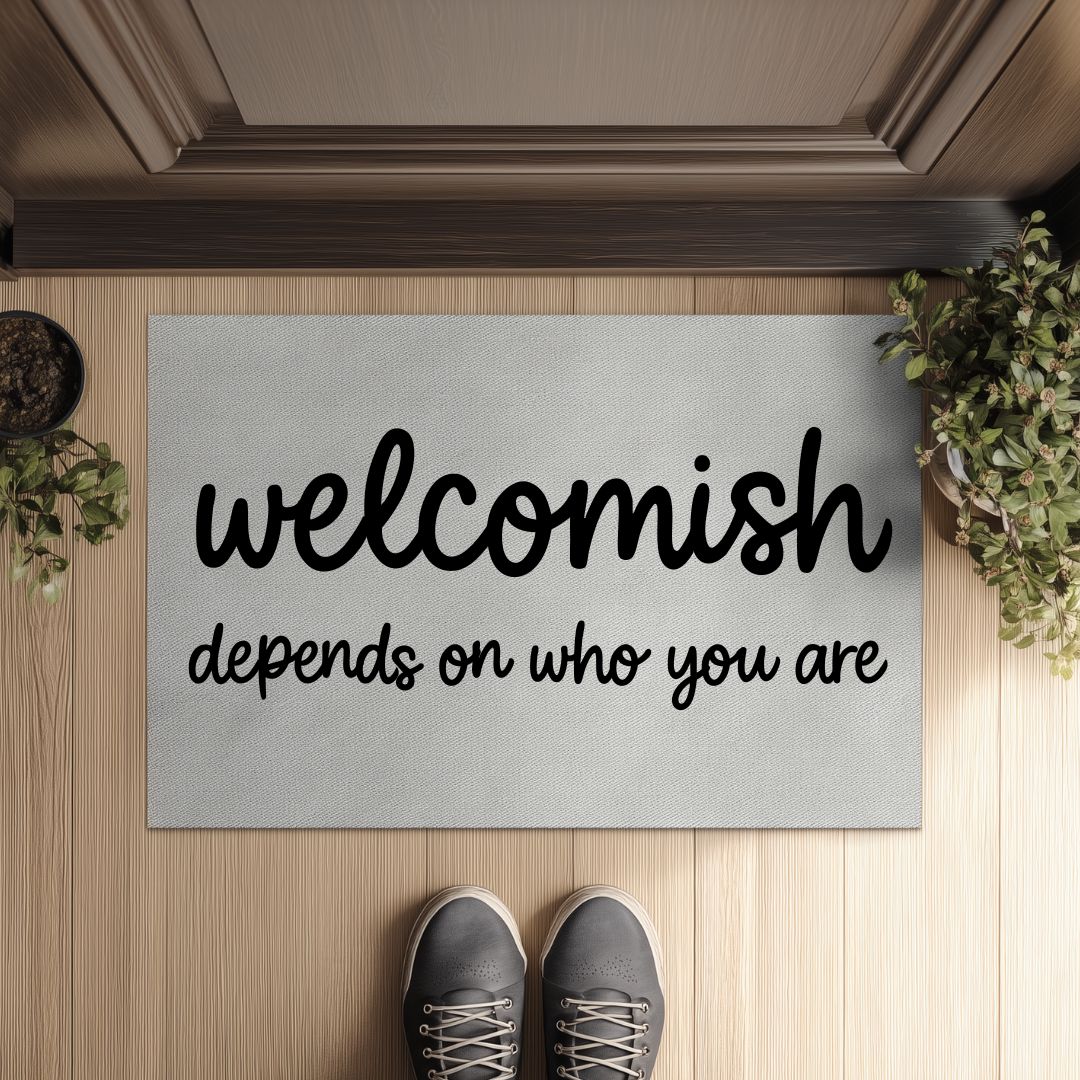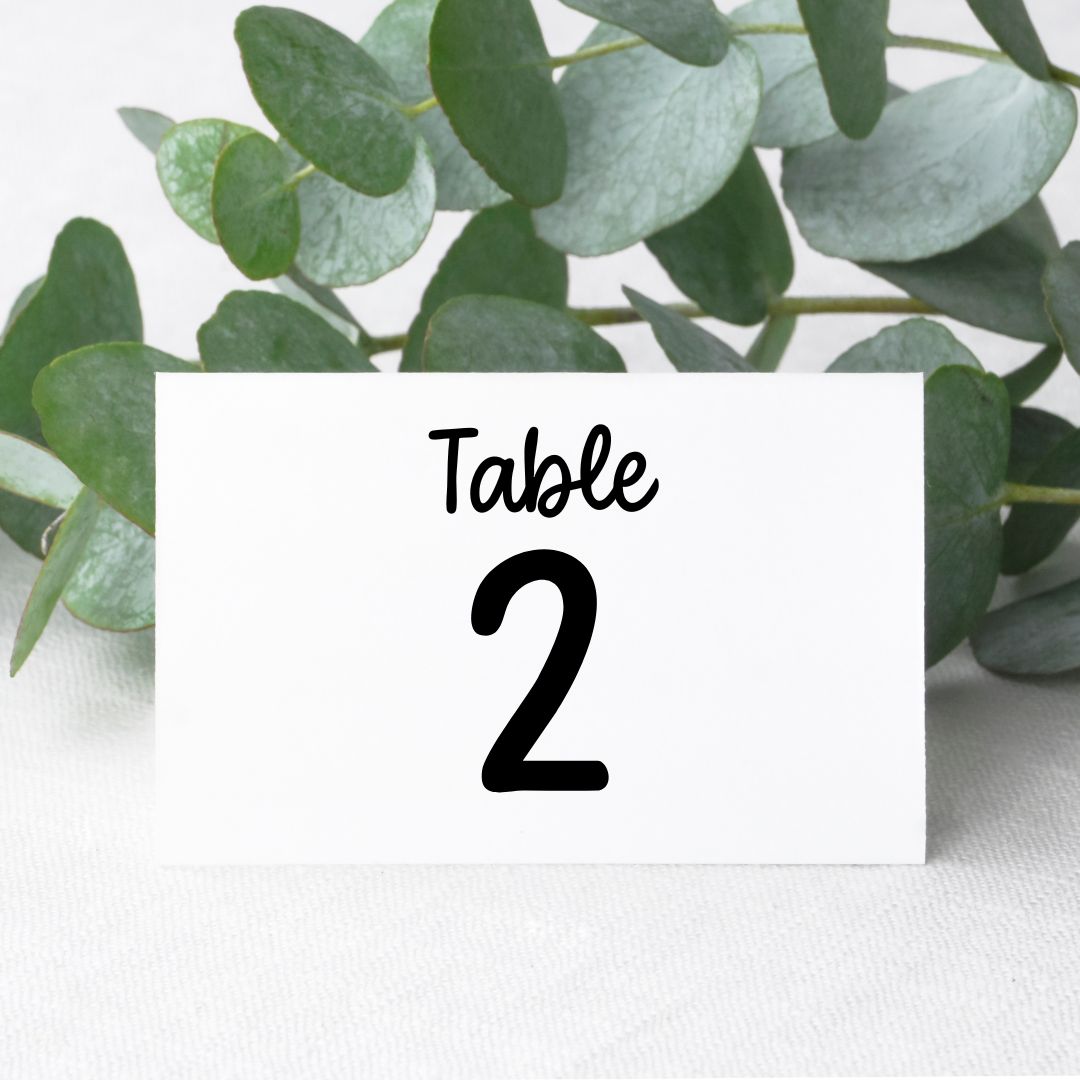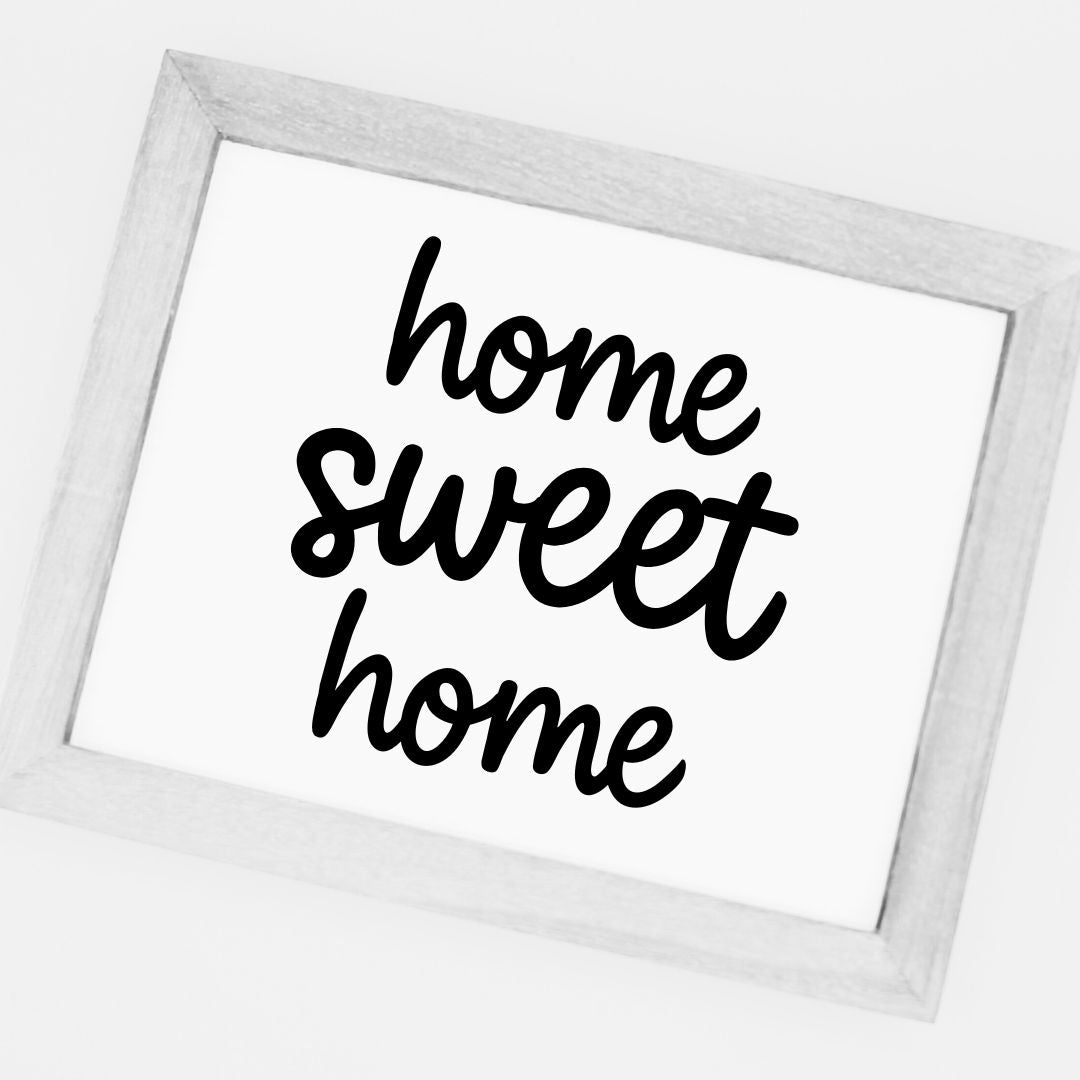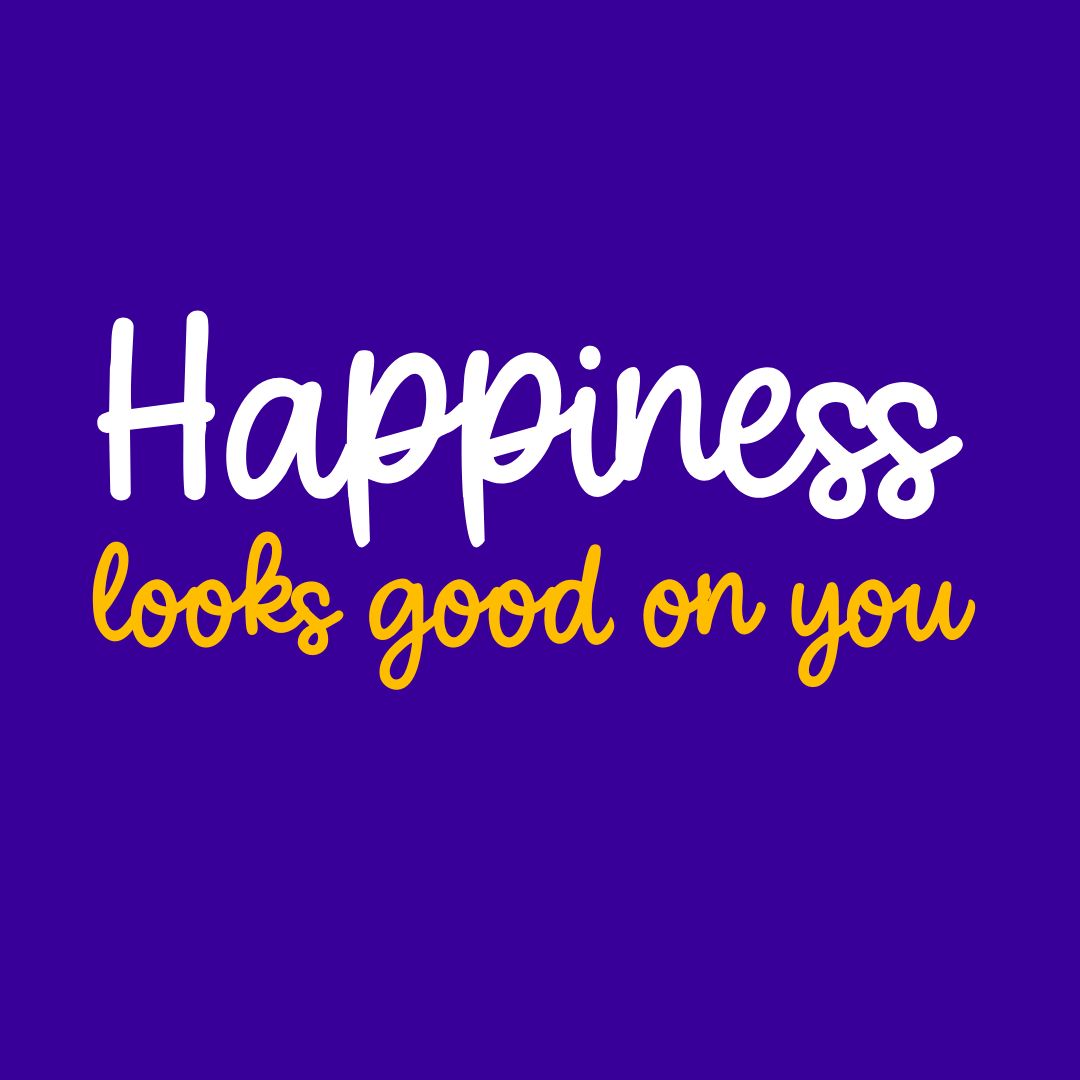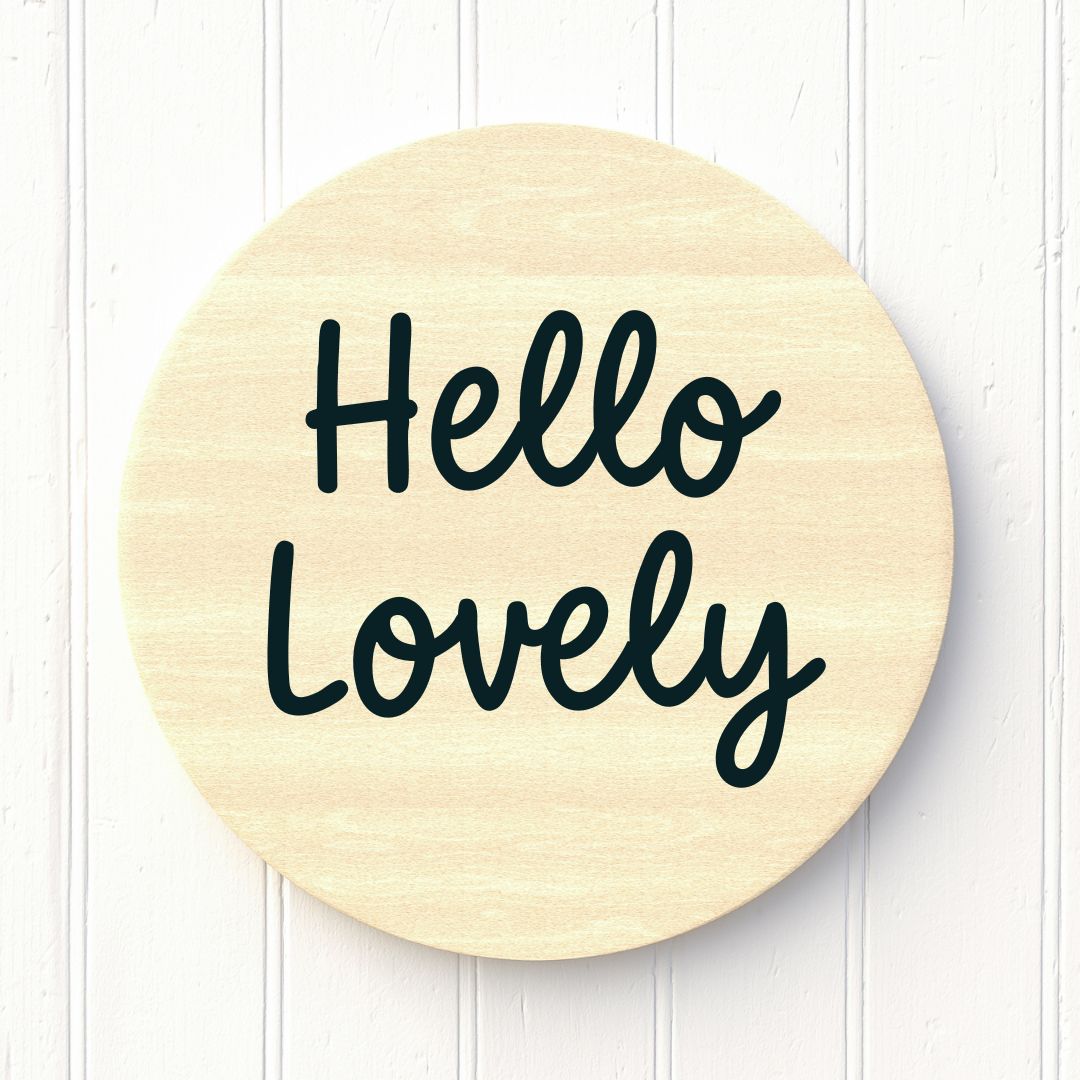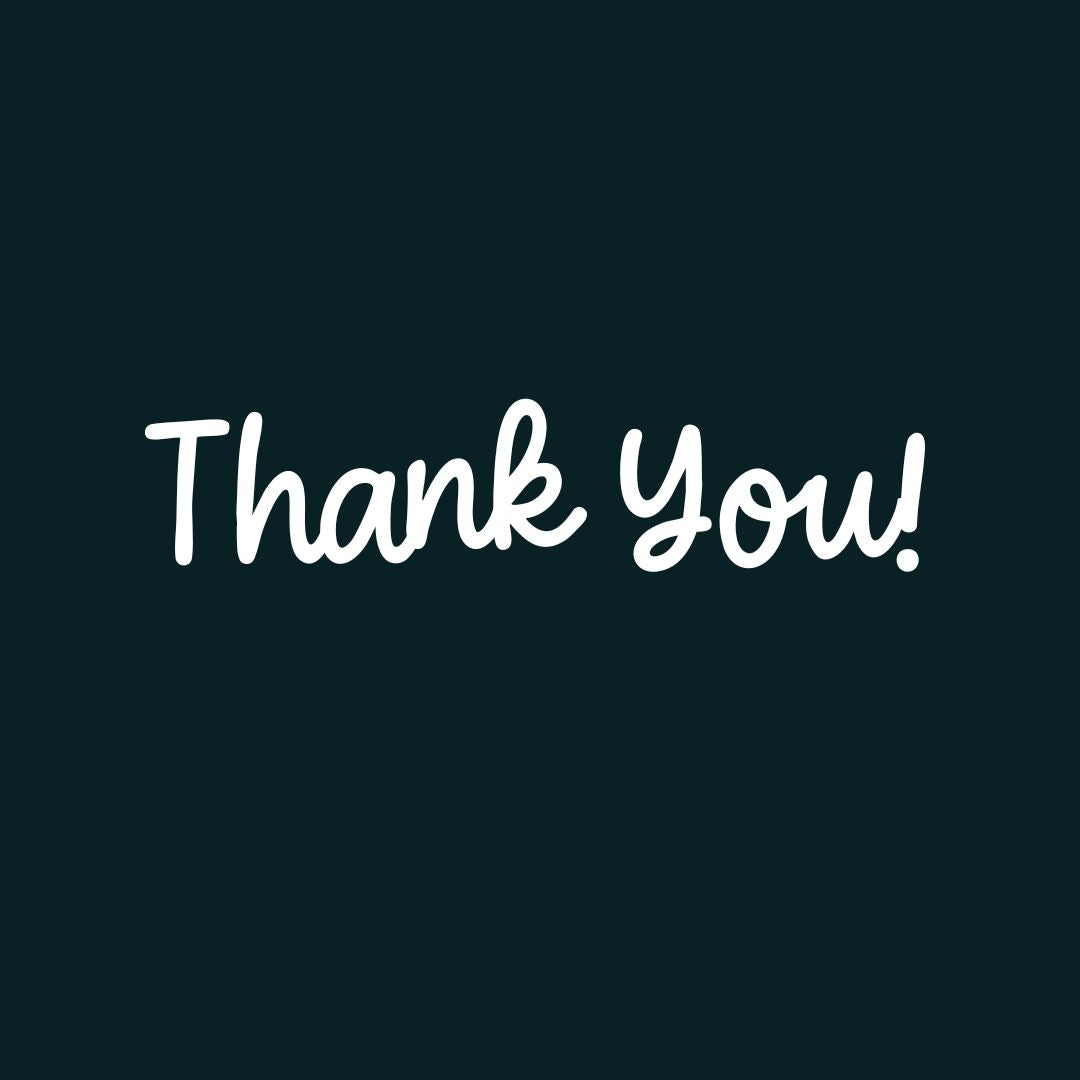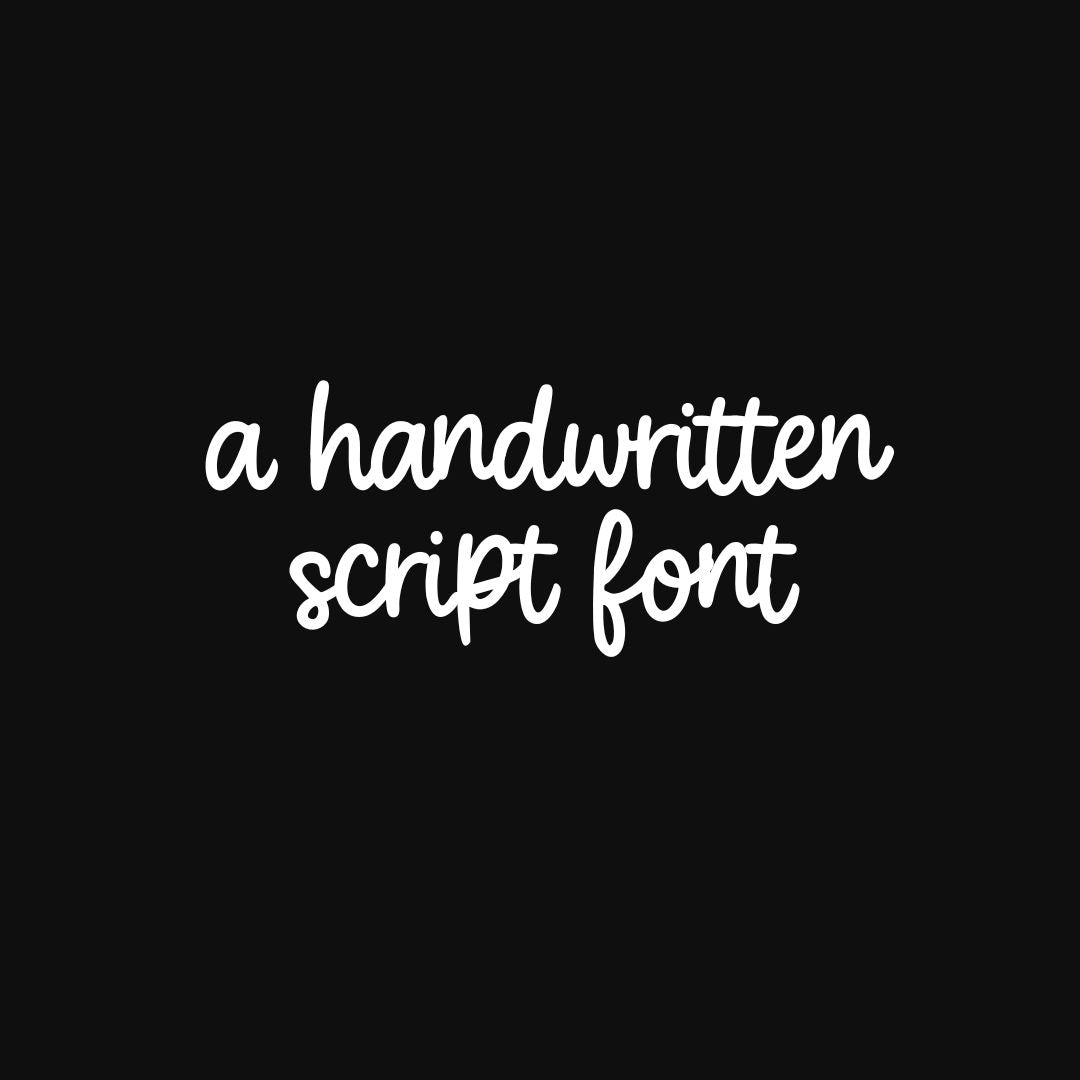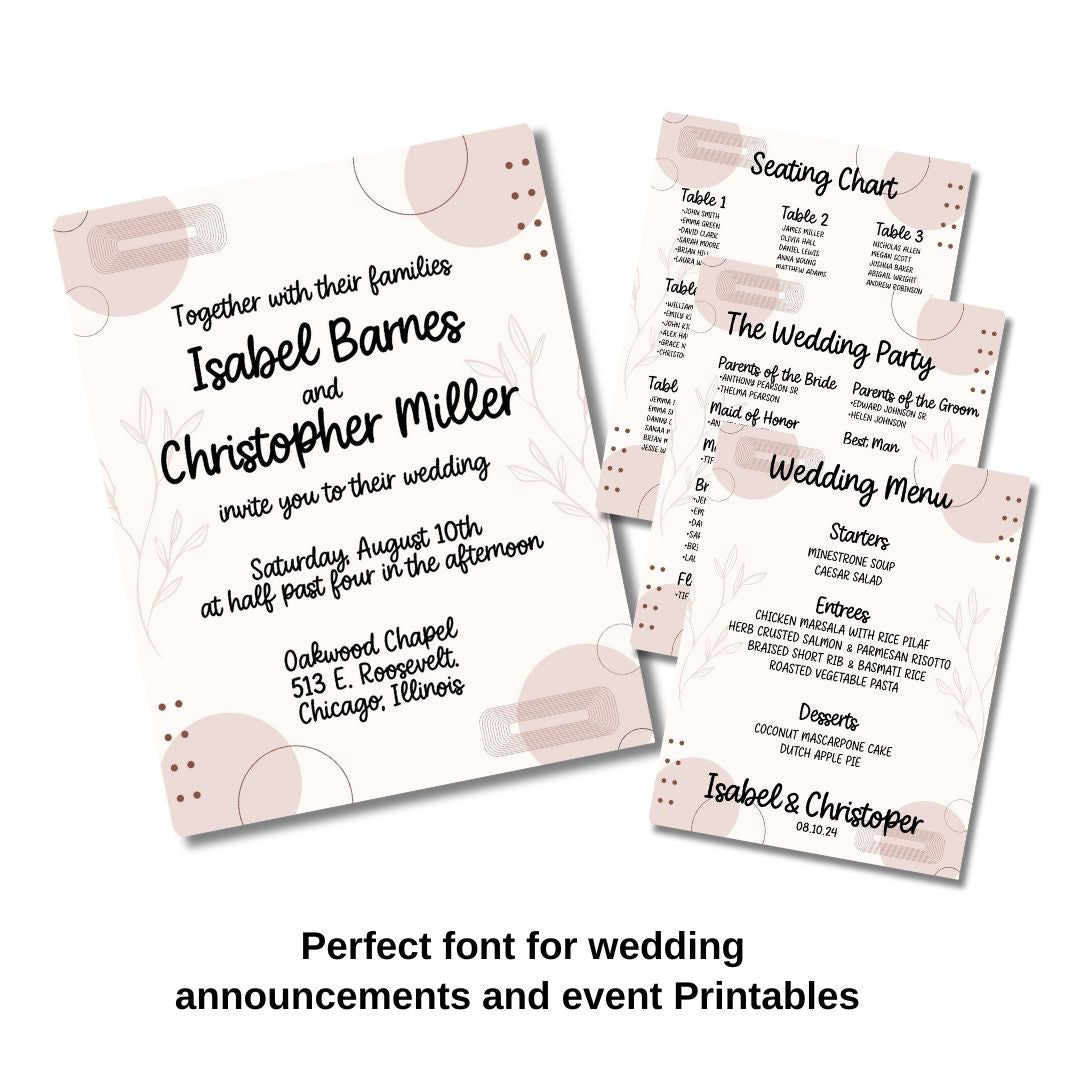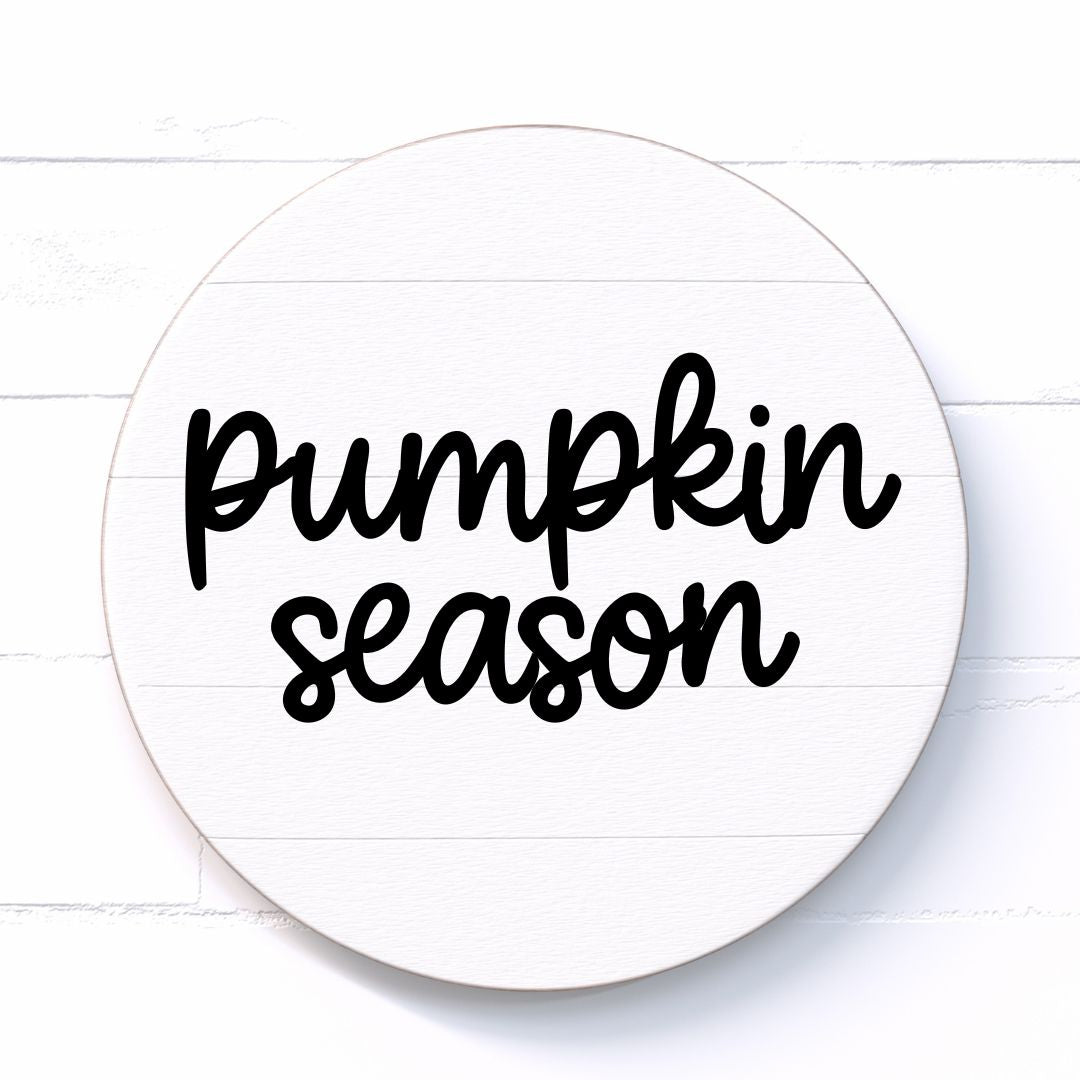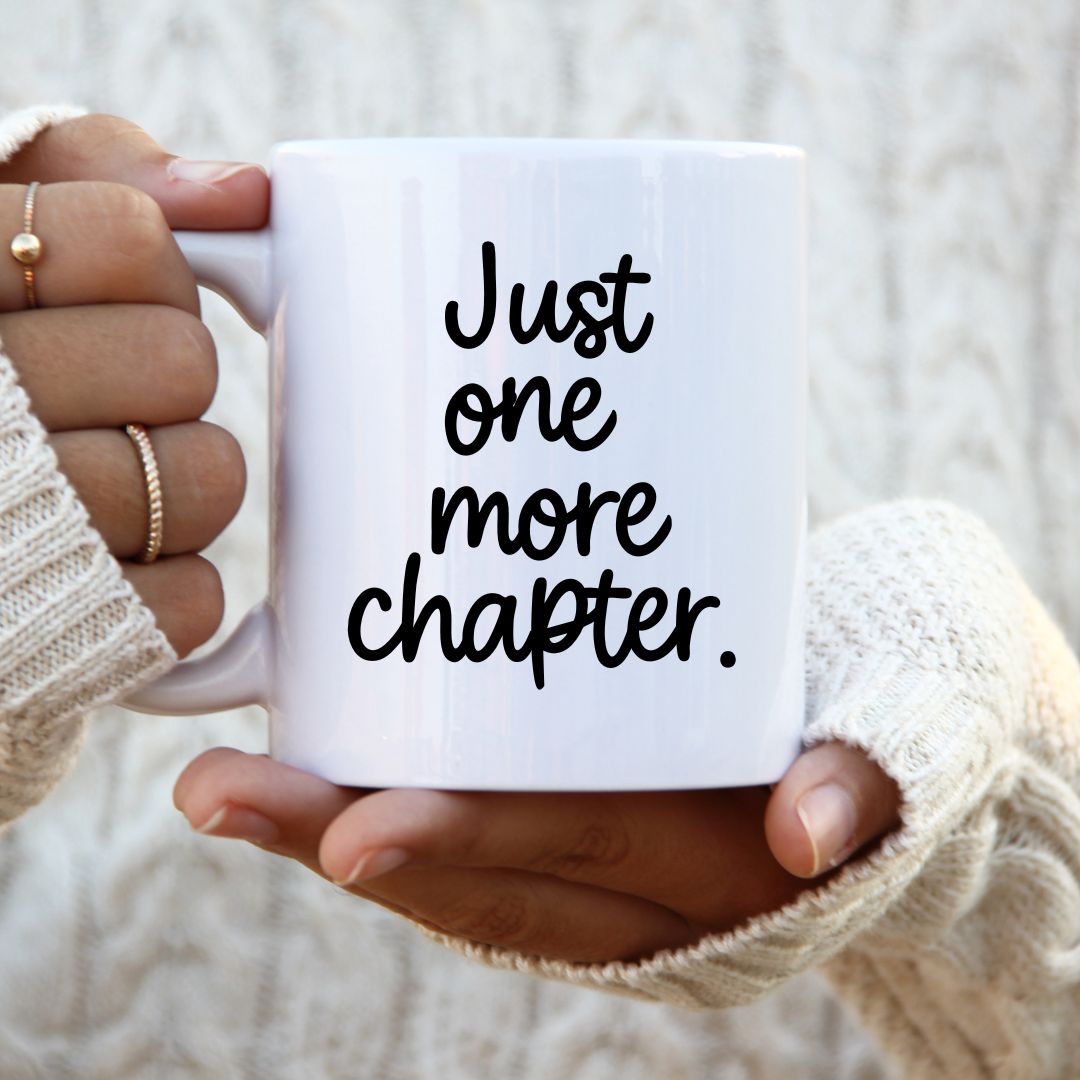
BlushBerry Font
Blushberry Font – Whimsical Handwritten Script
Blushberry is a playful, handwritten script font with a bouncy baseline and felt-tip monoline texture. Designed to look like a sweet personal note, it’s perfect for Cricut crafts, printable quotes, greeting cards, planner stickers, SVG designs, and more.
🧁 Perfect For:
• Wedding Invitations & Stationery
• Logos & Branding
• Teacher & Classroom Materials
• Greeting Cards & Wall Art
• Social Media & Blog Graphics
• Journals, Planners & Stickers
BlushBerry is perfect for crafters, designers, and small business owners who want a playful handwritten look. Ideal for Cricut and Procreate projects, this charming script font adds personality to logos, social media graphics, wedding invites, printables, and more. Teachers love it for classroom decor and learning resources. With its clean lines and whimsical style, it’s great for planners, stickers, and creative branding.